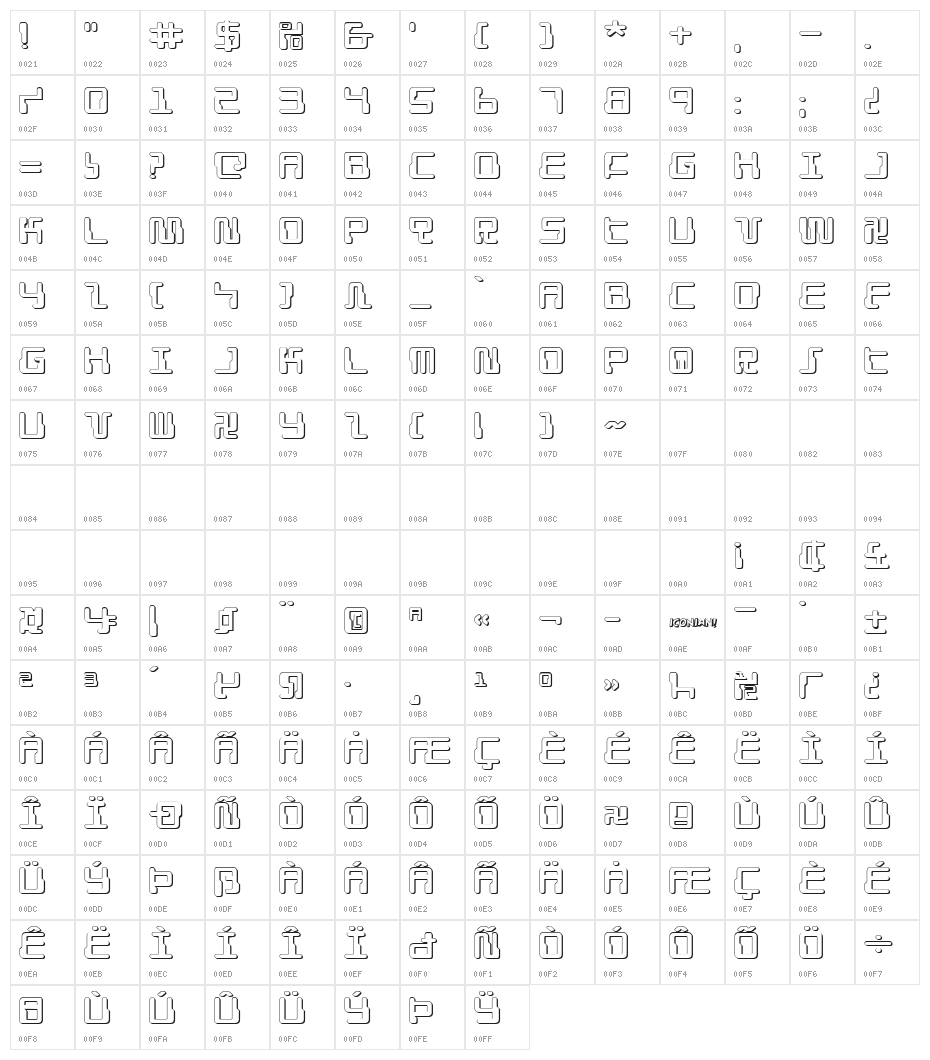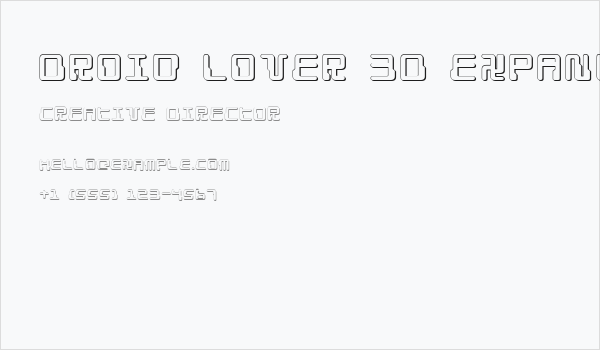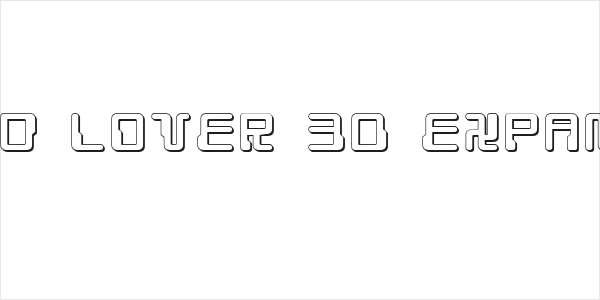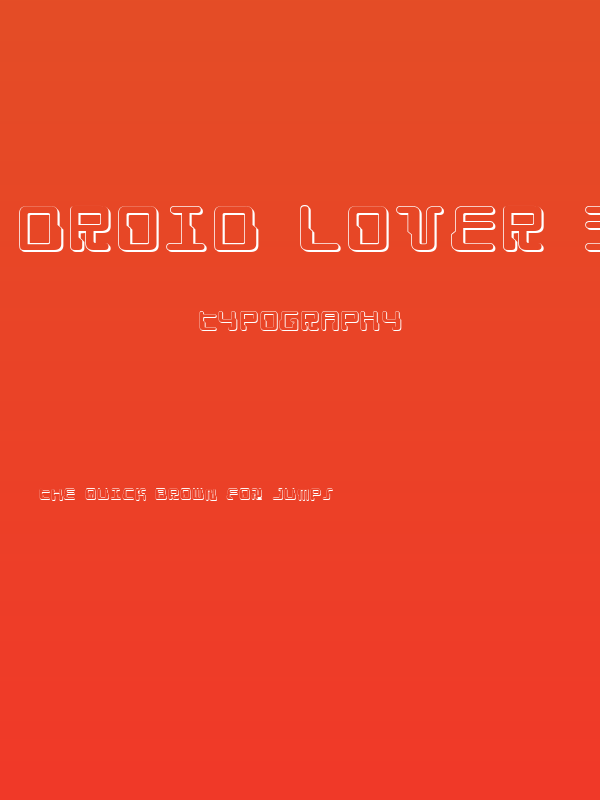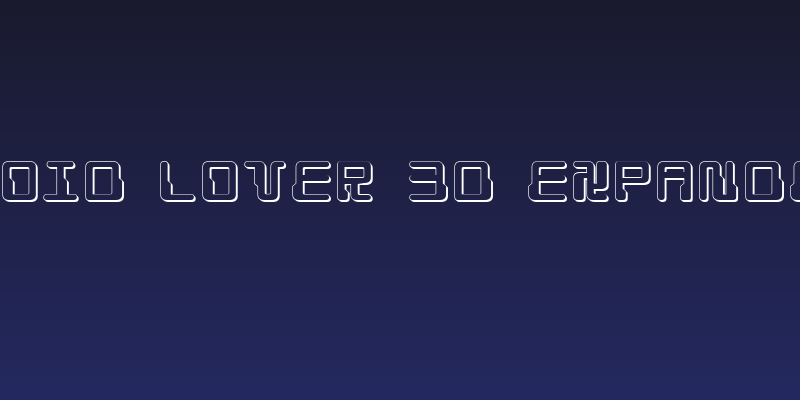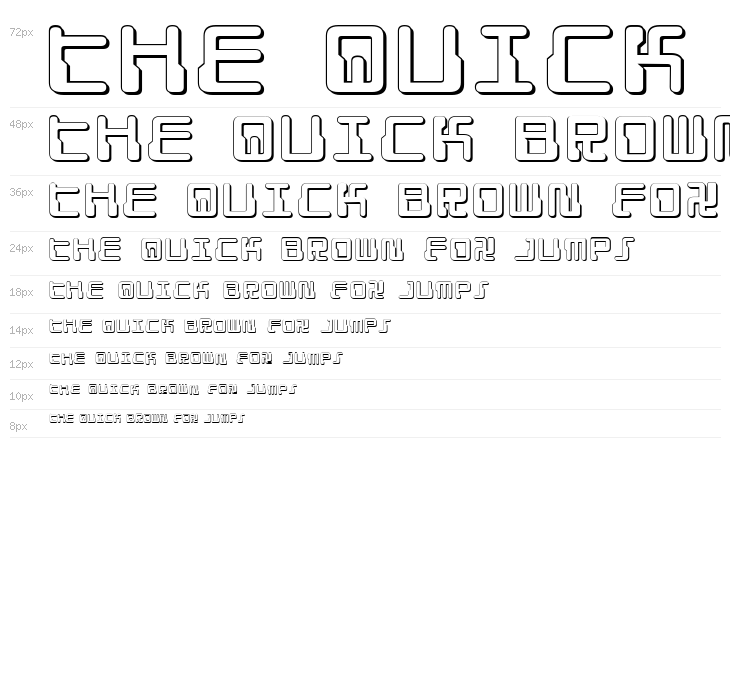
Droid Lover 3D Expanded Font
Droid Lover 3D Expanded Description
This font features a futuristic and geometric design with a three-dimensional effect. Each character is outlined with a consistent stroke, creating a hollow appearance that emphasizes its modern and tech-inspired aesthetic. The uppercase and lowercase letters maintain a uniform style, with angular and blocky shapes that suggest a digital or robotic theme. Numbers and special characters follow the same design principles, ensuring a cohesive look across all elements. The font's expanded width enhances its readability and makes it suitable for attention-grabbing headlines or titles.
| Proposed Projects | Ideal for sci-fi movie posters, tech company logos, video game titles, and futuristic-themed event invitations. |